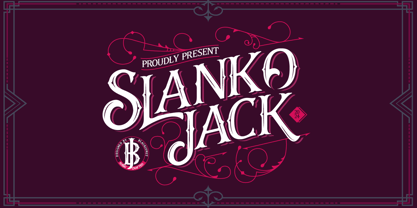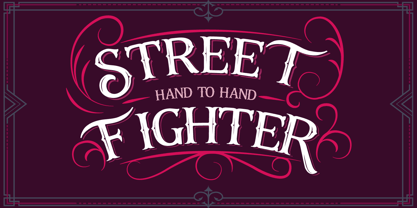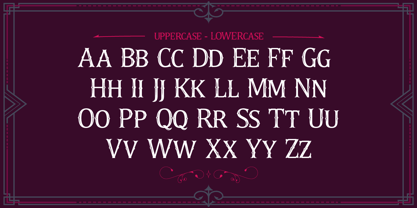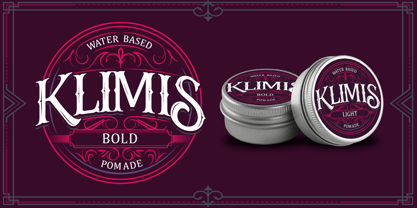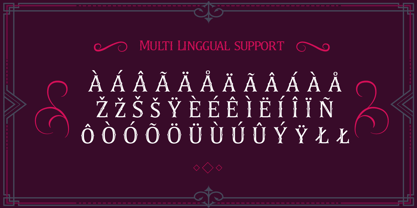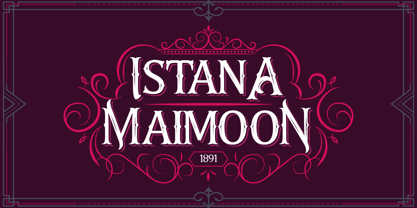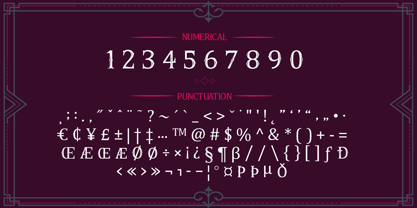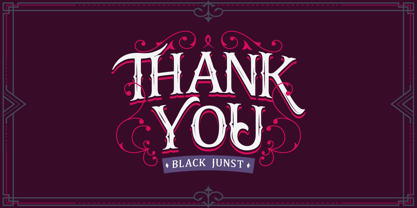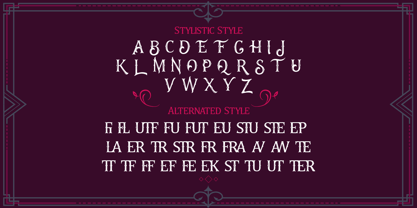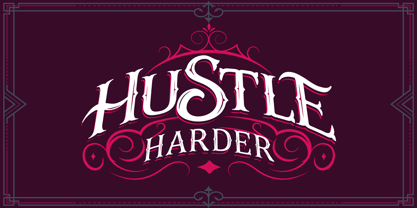
Slanko Jack
by Black Junst
The Slanko Jack Font Family was designed by Maulana Semar and published by Black Junst. Slanko Jack contains 1 styles. More about this family
Slanko Jack – Vintage Tattoo Display Slanko Jack is a bold and expressive vintage display font that combines tattoo-style elegance, gothic charm, and ornamental retro flair into a powerful typeface. Designed for creators seeking drama and character, each letterform features sharp serifs, decorative curves, and handcrafted swashes that capture attention instantly. Whether you're designing logos, barbershop branding, whiskey labels, rock band merchandise, apparel, or vintage posters, Slanko Jack offers a rebellious yet classy aesthetic that enhances any design. With uppercase and lowercase letters, multilingual support, ligatures, and stylistic alternates, it provides complete creative flexibility. Ideal for projects that demand a timeless, vintage soul with a modern edge — from striking book covers to tattoo studio branding, streetwear logos, signage, and more. Features: - Uppercase & lowercase letters - Multilingual support - Unique ligatures for a natural flow Bring bold originality to your next project with Slanko Jack.
Designers: Maulana Semar
Foundry: Black Junst